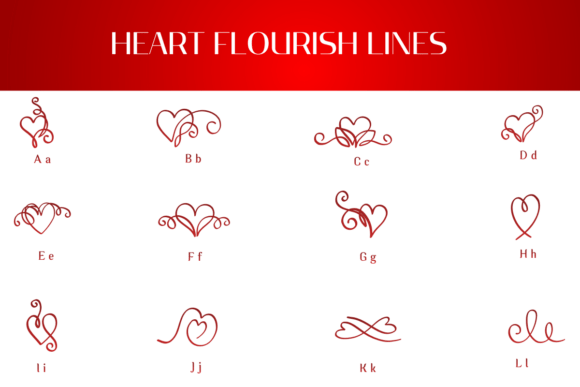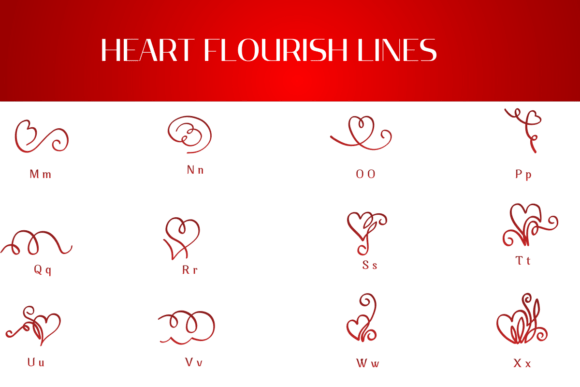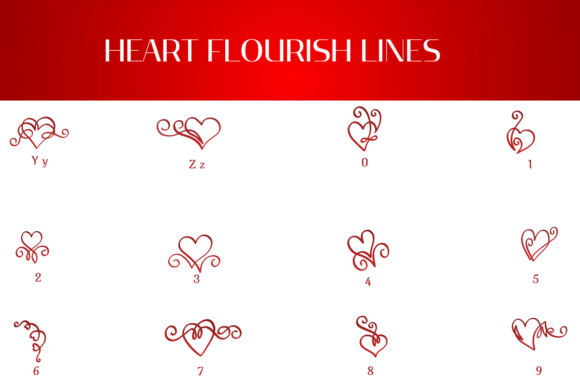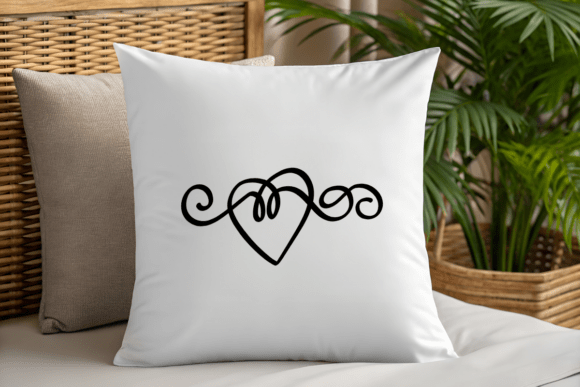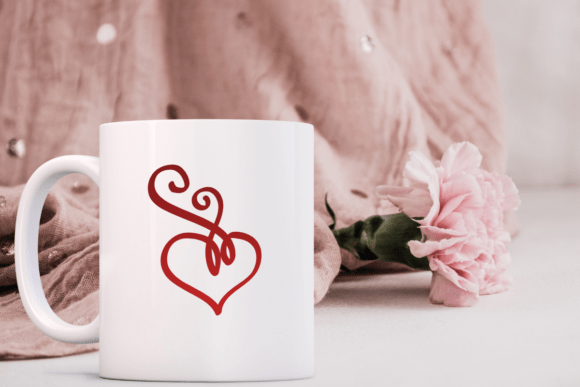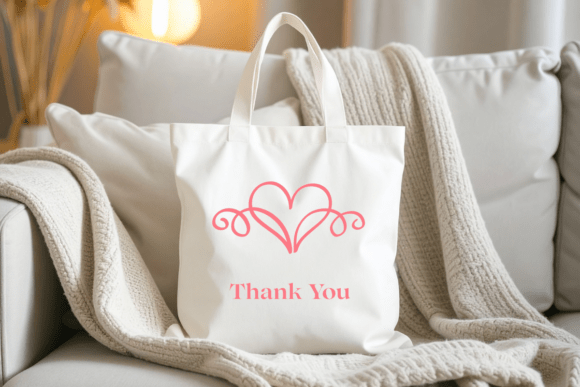
Introducing Heart Flourish Lines Font: The Perfect Addition to Your Creative Projects
Are you a designer, crafter, or DIY enthusiast looking for a unique and lovely font to add a personal touch to your projects? Look no further than Heart Flourish Lines Font! This beautiful dingbats font is sure to capture your heart and bring a touch of elegance to your creative endeavors.
What is Heart Flourish Lines Font?
Heart Flourish Lines Font is a stunning dingbats font that features intricate heart-shaped designs and flourishing lines. The font is made up of a collection of beautiful, hand-drawn hearts and lines that can be used to add a decorative touch to your projects. Whether you’re creating greeting cards, scrapbook pages, or social media graphics, Heart Flourish Lines Font is the perfect addition to your design toolkit.
Why You’ll Love Heart Flourish Lines Font
So, what makes Heart Flourish Lines Font so special? Here are just a few reasons why you’ll love adding this font to your creative projects:
- Unique and Eye-Catching Designs: The heart-shaped designs and flourishing lines in this font are truly one-of-a-kind. They’ll add a touch of elegance and sophistication to your projects, making them stand out from the crowd.
- Versatile and Easy to Use: Heart Flourish Lines Font is incredibly versatile and easy to use. You can use it to create a wide range of projects, from greeting cards and invitations to social media graphics and blog posts.
- Perfect for Valentine’s Day and Love-Themed Projects: With its heart-shaped designs, Heart Flourish Lines Font is the perfect choice for Valentine’s Day and love-themed projects. But it’s also versatile enough to be used for other occasions and projects, making it a great addition to your font collection.
How to Use Heart Flourish Lines Font in Your Projects
Using Heart Flourish Lines Font in your projects is easy! Here are a few tips to get you started:
- Pair it with Other Fonts: Heart Flourish Lines Font looks great when paired with other fonts. Try pairing it with a bold font for a striking contrast, or with a script font for a more elegant look.
- Use it to Add a Decorative Touch: Use Heart Flourish Lines Font to add a decorative touch to your projects. You can use it to create borders, frames, and other design elements that will make your projects stand out.
- Experiment with Different Colors: Heart Flourish Lines Font looks great in a variety of colors. Experiment with different colors to find the one that works best for your project.
Design and Crafting Ideas Using Heart Flourish Lines Font
Here are a few design and crafting ideas to get you started:
- Greeting Cards: Use Heart Flourish Lines Font to create beautiful greeting cards for Valentine’s Day, anniversaries, and other special occasions.
- Scrapbook Pages: Add a decorative touch to your scrapbook pages with Heart Flourish Lines Font. You can use it to create borders, frames, and other design elements.
- Social Media Graphics: Use Heart Flourish Lines Font to create eye-catching social media graphics that will make your followers smile.
- Invitations: Create beautiful invitations for parties, weddings, and other special events using Heart Flourish Lines Font.
Heart Flourish Lines Font is a lovely dingbats font that is sure to capture your heart. With its unique and eye-catching designs, versatility, and ease of use, it’s the perfect addition to your design toolkit. Whether you’re a designer, crafter, or DIY enthusiast, Heart Flourish Lines Font is a must-have font that will bring a touch of elegance and sophistication to your creative projects.